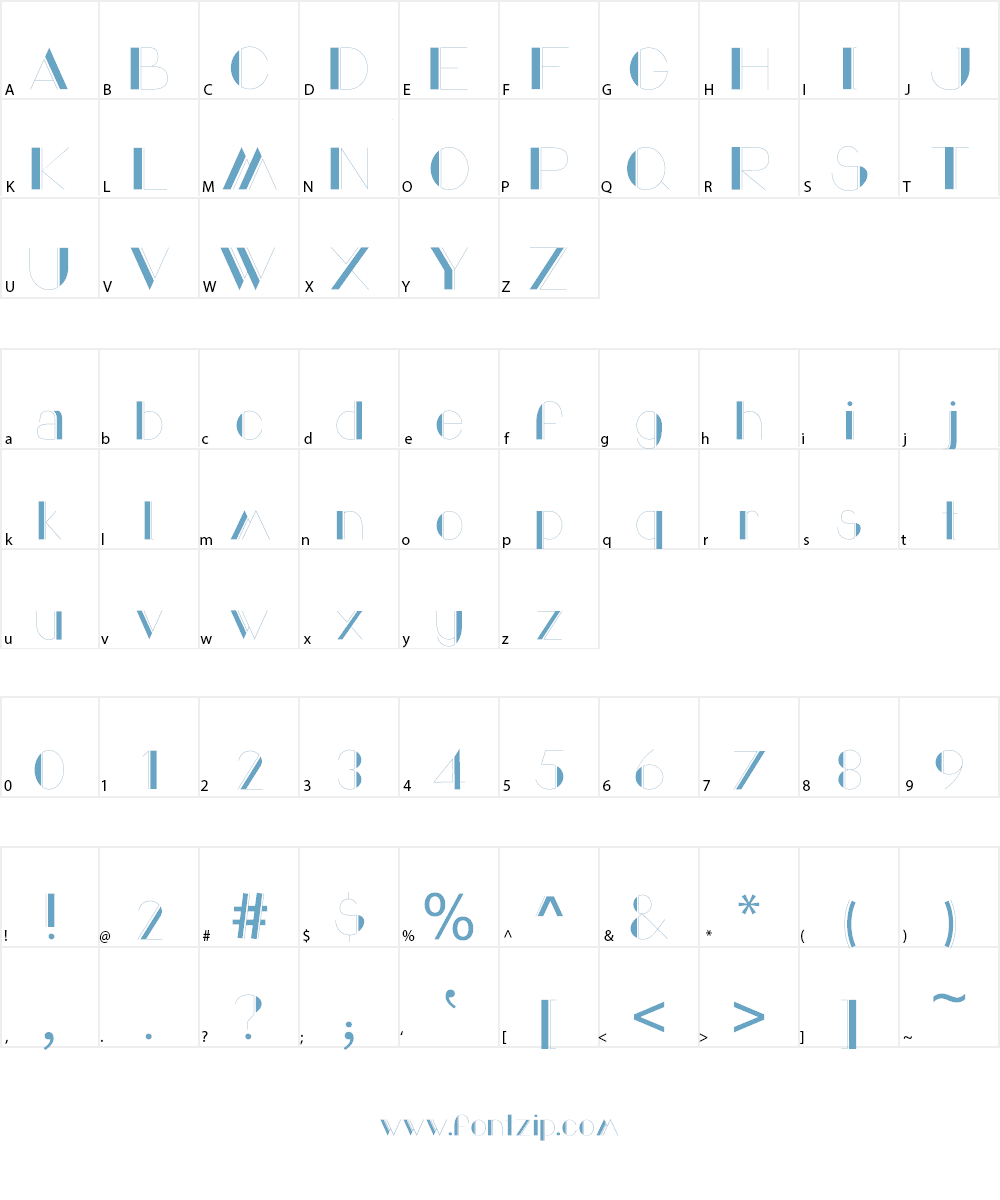
Miss 20 was directly inspired by the Great Gatsby and Art Deco style of the 1920’s. It was very much the era of swing dancing, clubs, showgirls, and the big city life! Bringing in the connection of the male gaze, I have tried to understand how women in this time were treated and represented.
Miss 20 is from the decorative style category, with the intention that it be utilized for titles and display type.
The use of the thick and the thin lines not only link to the aesthetic of the era, but are also there to represent the male gaze. Thick representing male dominance. Thinness and curves representing the delicate women constantly being portrayed as weak, unable to stand up for herself or have a mind of her own.